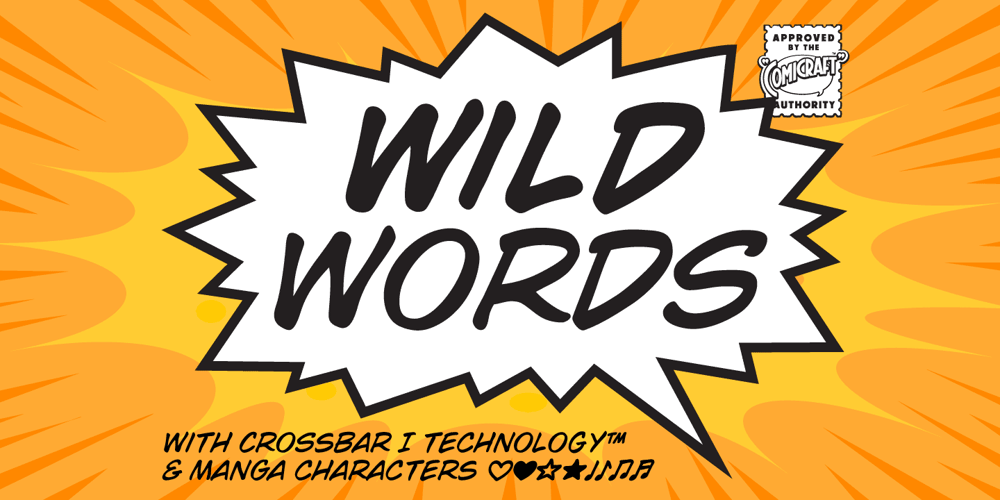
Wildwords
Wildwords font
Wildwords Font Family was designed by John Roshell and published by Comicraft. Wildwords contains 4 styles and family package options. Created for Jim Lee’s Wildstorm books, WildWords has proved to be one of our most popular fonts and has been featured in TIME magazine and the LEGO catalog, as well as used to letter thousands of Manga pages. Comicraft fonts are created BY comic book letterers FOR lettering comic books. Accept no substitutes!See this family related to WildWords: Wild Words Lower